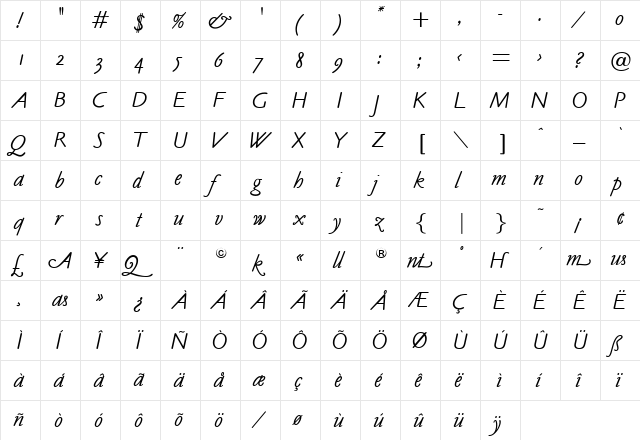
OPTICookeSans Medium Italic
Design Context for OPTICookeSans Typeface
OPTICookeSans is a composed and adaptable typeface that performs quietly and consistently across a wide range of design contexts. Its italic angle brings a sense of urgency and motion to the letterforms.